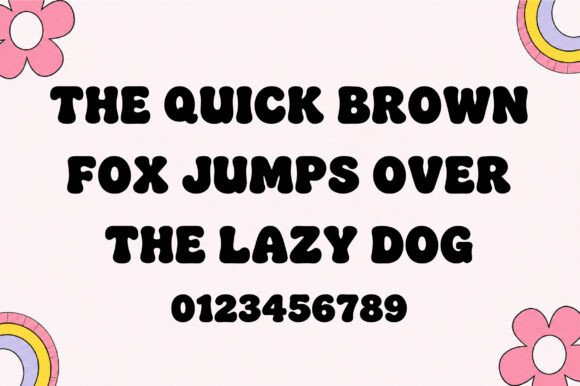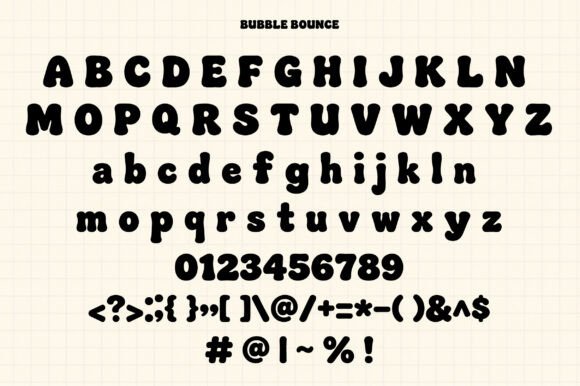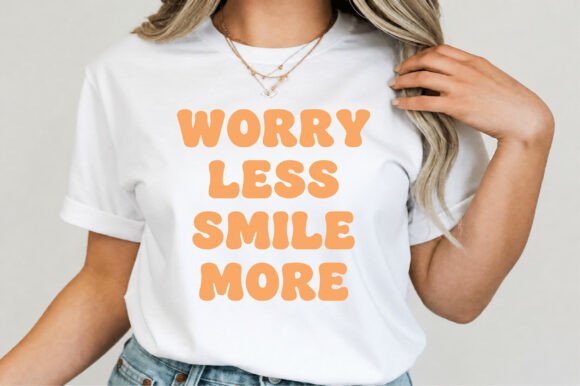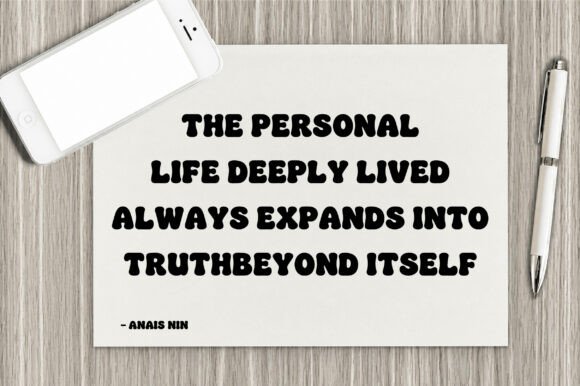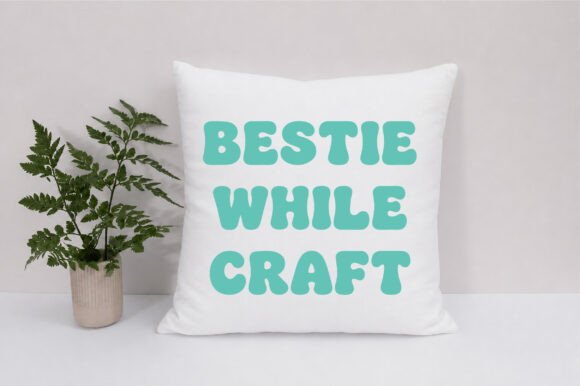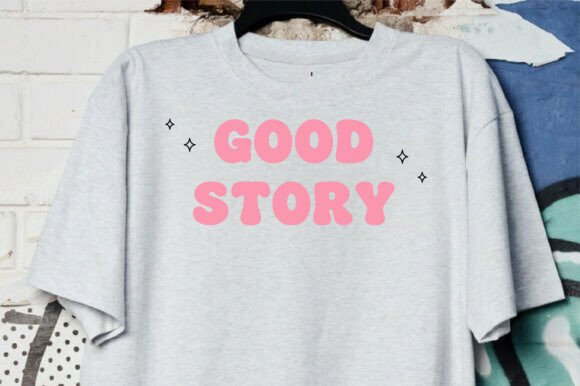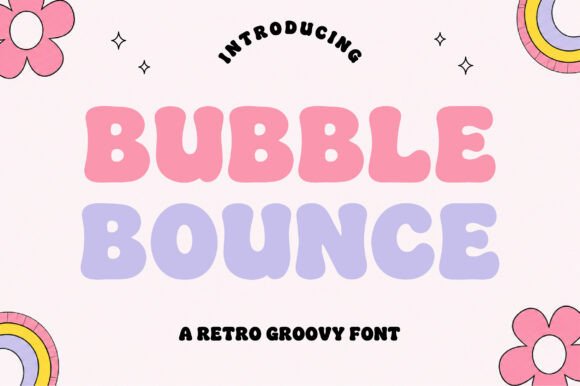
Bubble Bounce Font: Add a Playful Touch to Your Designs
Are you looking for a font that can add a playful and cheerful vibe to your designs? Look no further than the Bubble Bounce font! This fun and quirky font is perfect for designers and crafters who want to create eye-catching posters, branding materials, t-shirts, stickers, and more.
What is Bubble Bounce Font?
Bubble Bounce is a playful retro groovy font that features soft rounded curves and bold bubbly shapes. Its smooth and chunky style creates an eye-catching look that adds charm and personality to every creation. This fun display typeface brings a cheerful vintage vibe that is perfect for a wide range of design projects.
Key Features of Bubble Bounce Font
- Playful and retro groovy design
- Soft rounded curves and bold bubbly shapes
- Uppercase letters, lowercase letters, numbers, and special characters
- Perfect for posters, branding, t-shirts, stickers, sublimation projects, social media designs, kids designs, quotes, and creative crafts
Bubble Bounce font is a versatile choice for designers and crafters who want to add a playful touch to their creations. Whether you’re designing posters, branding materials, or t-shirts, this font is sure to make your designs stand out. Its smooth and chunky style creates an eye-catching look that adds charm and personality to every creation.
Use Cases for Bubble Bounce Font
Bubble Bounce font can be used for a wide range of design projects, including:
- Posters: Create eye-catching posters for events, promotions, or announcements
- Branding: Add a playful touch to your brand’s logo, packaging, or marketing materials
- T-shirts: Design fun and quirky t-shirts for kids and adults
- Stickers: Create colorful and playful stickers for laptops, water bottles, or any other surface
- Sublimation projects: Use Bubble Bounce font to create vibrant and colorful designs for sublimation projects
- Social media designs: Add a playful touch to your social media posts, stories, and graphics
- Kids designs: Create fun and educational designs for kids, such as alphabet charts, number lines, or coloring pages
- Quotes: Design inspirational and motivational quotes for social media, posters, or t-shirts
- Creative crafts: Use Bubble Bounce font to create unique and personalized crafts, such as handmade cards, gift tags, or scrapbook pages
Why Choose Bubble Bounce Font?
There are many reasons why you should choose Bubble Bounce font for your design projects. Here are a few:
- Unique and playful design
In conclusion, Bubble Bounce font is a fun and playful font that can add a cheerful vintage vibe to your designs. Its smooth and chunky style creates an eye-catching look that adds charm and personality to every creation. Whether you’re a designer or crafter, Bubble Bounce font is a versatile choice that can be used for a wide range of design projects. So why wait? Download Bubble Bounce font today and start creating fun and quirky designs that will make your audience smile!